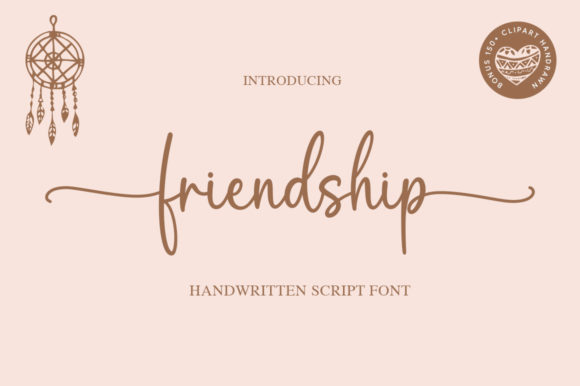
Introducing Friendship Font, the ultimate choice for all your romantic design needs! Created by the talented team at Graphix Line Studio, this exquisite script font is guaranteed to add a touch of elegance and charm to any project.
With its sweet and delicate handwritten style, Friendship Font will captivate your audience from the moment they lay eyes on it. Whether you're creating wedding invitations, heartfelt love quotes, or simply want to infuse your designs with a romantic vibe, this font is the perfect companion.
What sets Friendship Font apart is its dainty and joyful nature. Every letter is meticulously crafted to convey a sense of warmth and tenderness, making it the ideal choice for expressing your deepest emotions. Let your words dance across the page with this font's enchanting curves and graceful strokes.
But that's not all – Friendship Font goes above and beyond by offering you a seamless experience. Thanks to its PUA encoding, accessing all the unique glyphs and swashes is a breeze. Unleash your creativity and explore the endless possibilities this font has to offer.
Why settle for ordinary when you can elevate your designs with Friendship Font? Embrace the power of love and let this font breathe life into your projects. Whether you're a professional designer or a passionate DIY enthusiast, this font will effortlessly transform your creations into works of art.
Imagine the joy on your loved ones' faces when they receive an invitation adorned with Friendship Font. Picture the impact of heartfelt love quotes beautifully crafted with this font's romantic touch. The possibilities are endless, and the choice is yours.
In a world full of ordinary fonts, be extraordinary. Choose Friendship Font and let your words speak volumes. Your audience will be mesmerized, and your designs will leave a lasting impression. Elevate your artistry and embrace the beauty of this captivating font.
Friendship Font – where love and creativity intertwine. Take the leap and let your imagination soar. Your journey towards extraordinary designs starts now.